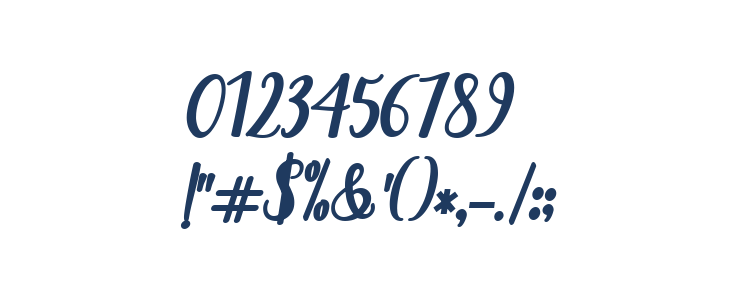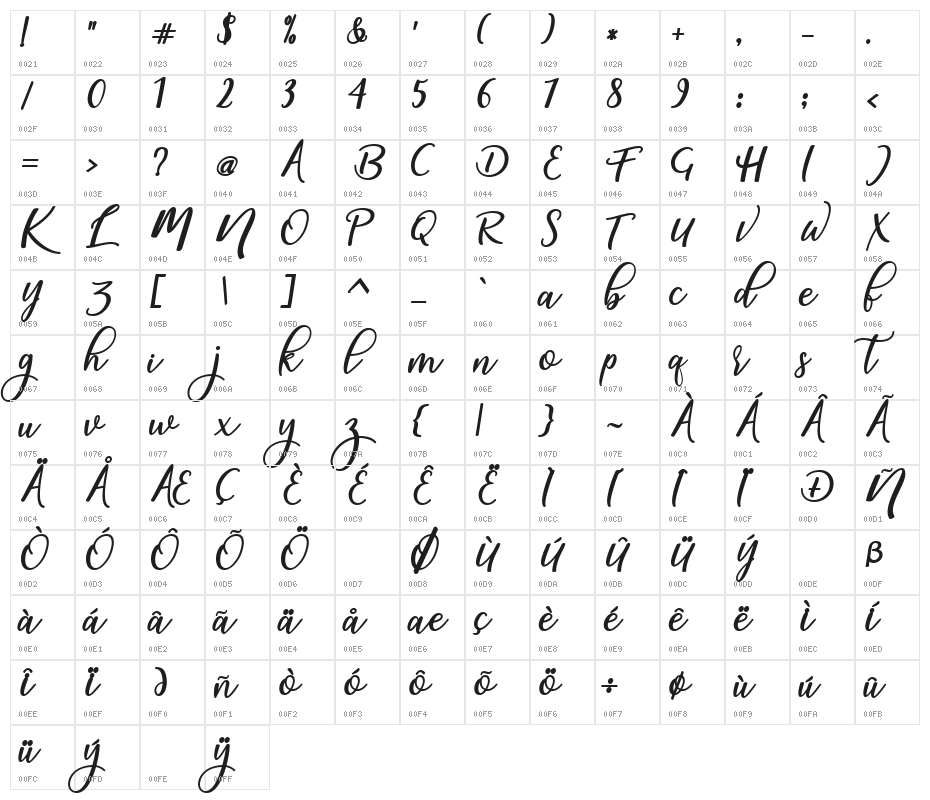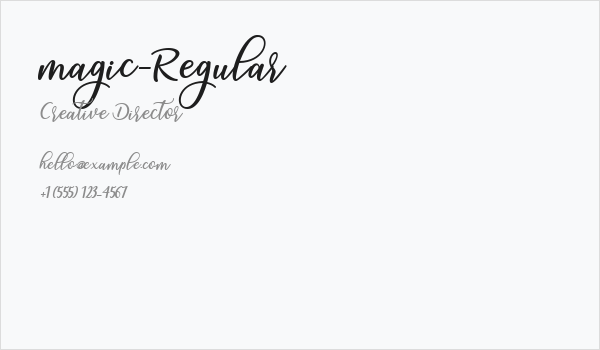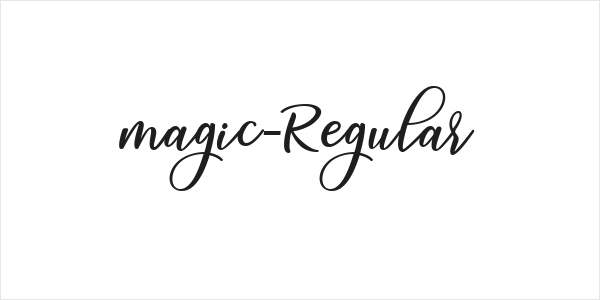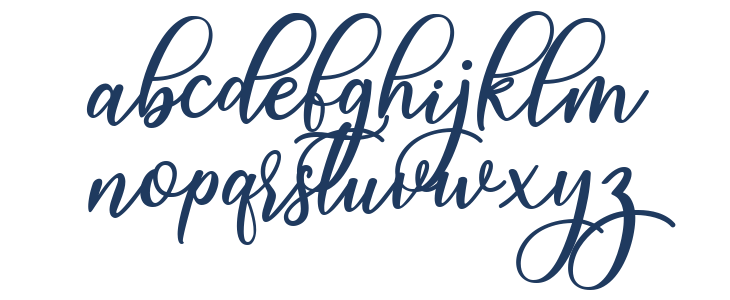
magic-Regular Font
magic-Regular Description
This font exhibits a dynamic and flowing script style, characterized by its elegant, cursive letterforms. The uppercase letters are bold and expressive, with sweeping curves and a sense of movement. The lowercase letters maintain a consistent flow, with some characters featuring loops and flourishes that add to the overall decorative appeal. The numerals are equally stylish, maintaining the script's fluidity. Special characters are integrated seamlessly, offering a cohesive look across all glyphs. This font's design is both sophisticated and approachable, making it suitable for a variety of creative applications.
| Use Case | Logos, Invitations, Branding |
| Proposed Projects | Ideal for wedding invitations, greeting cards, branding projects, and elegant packaging designs. |